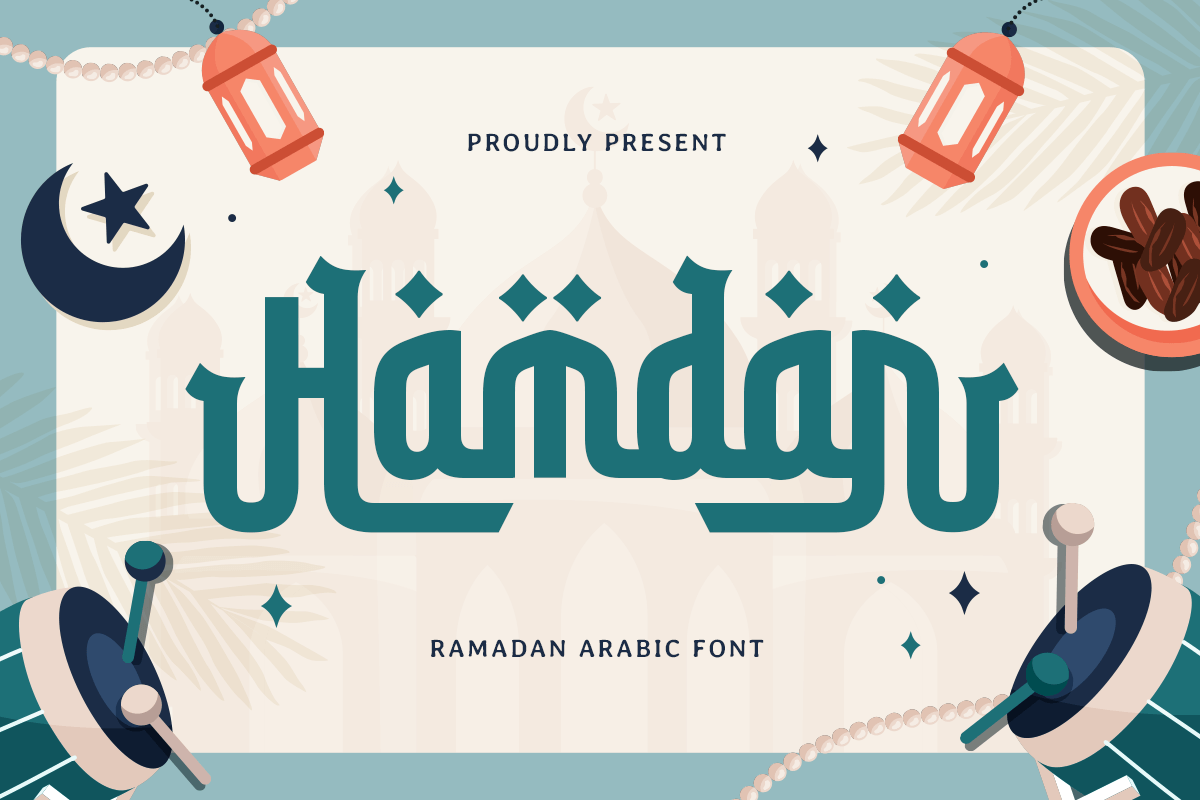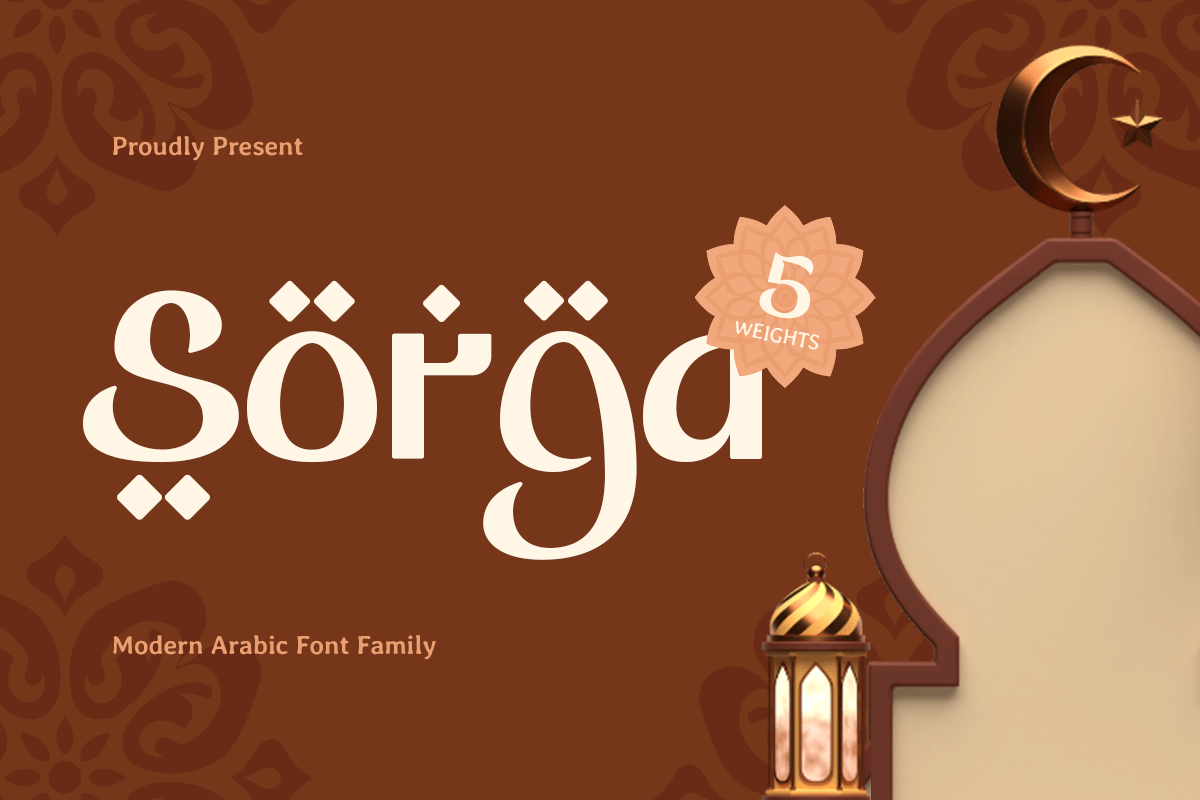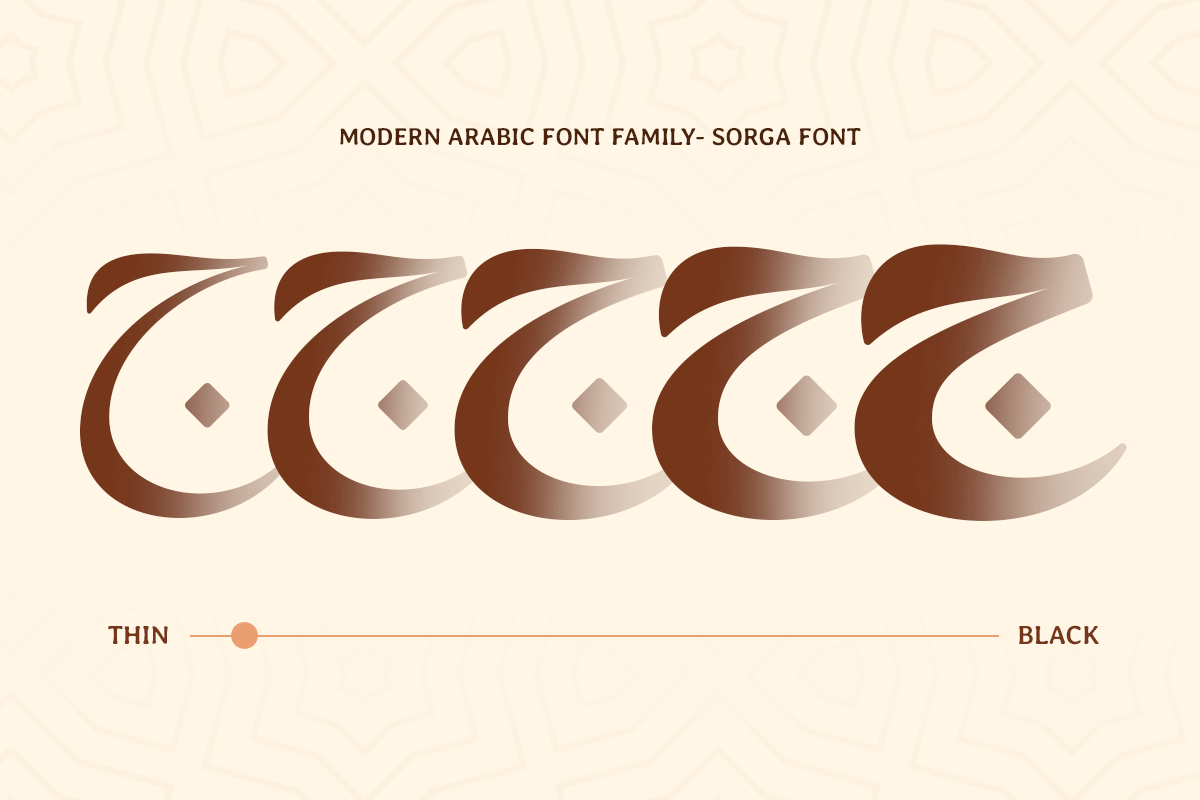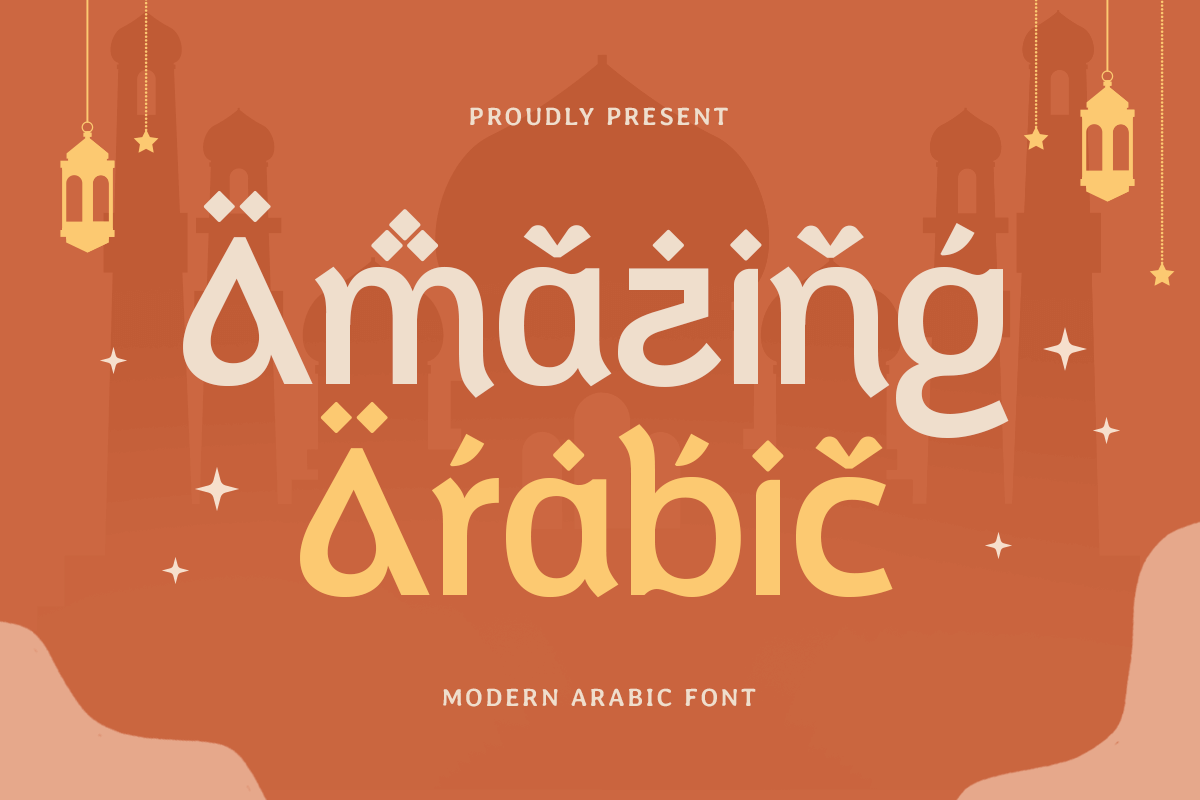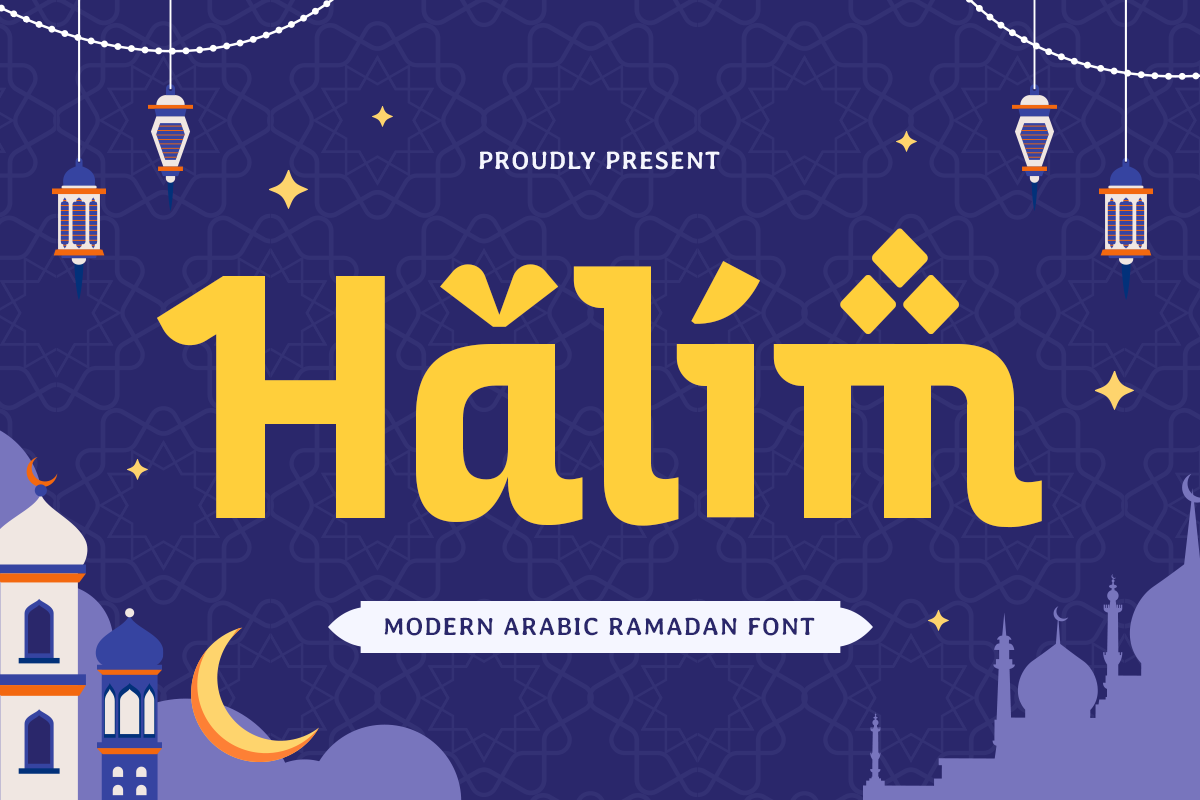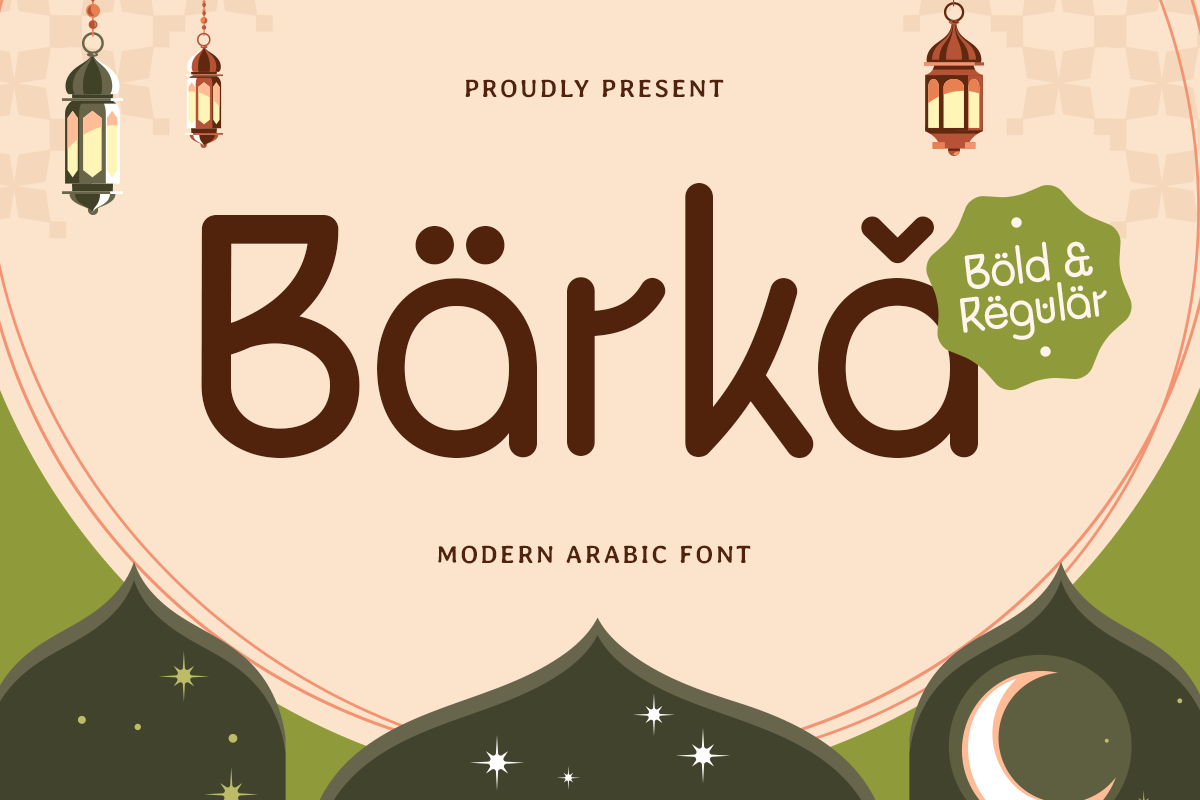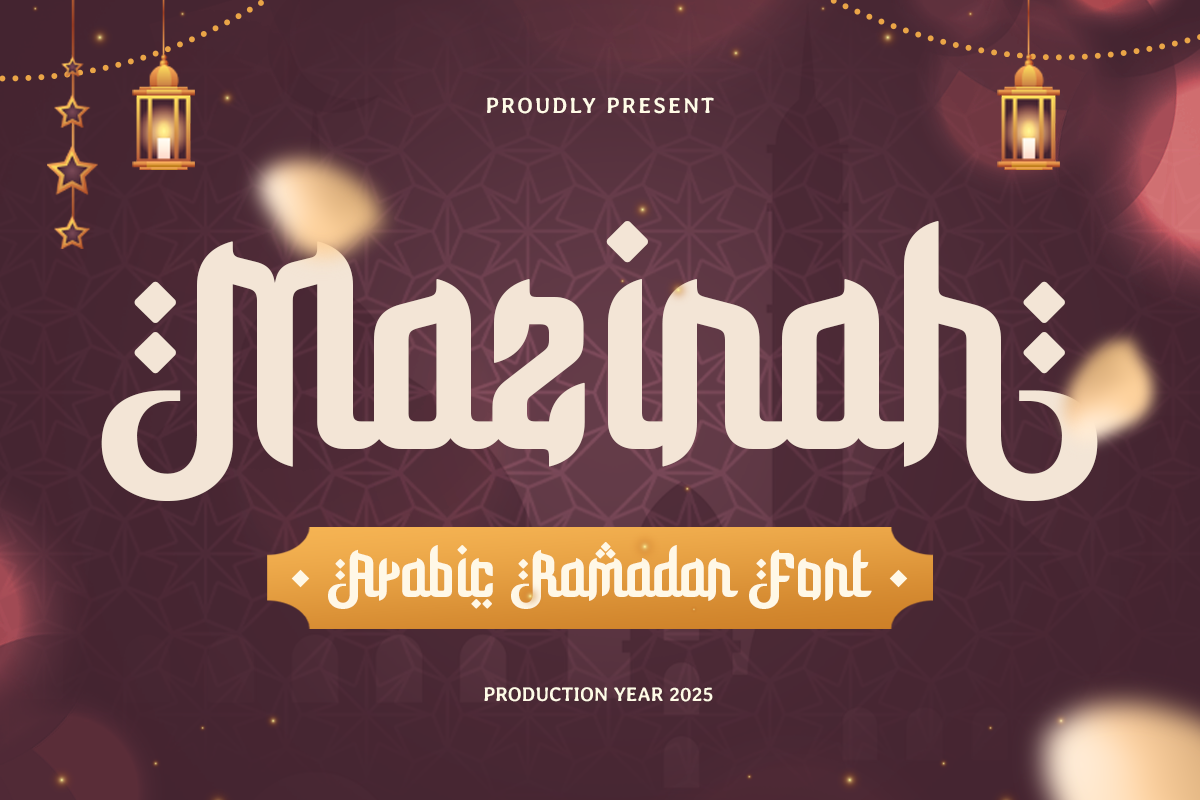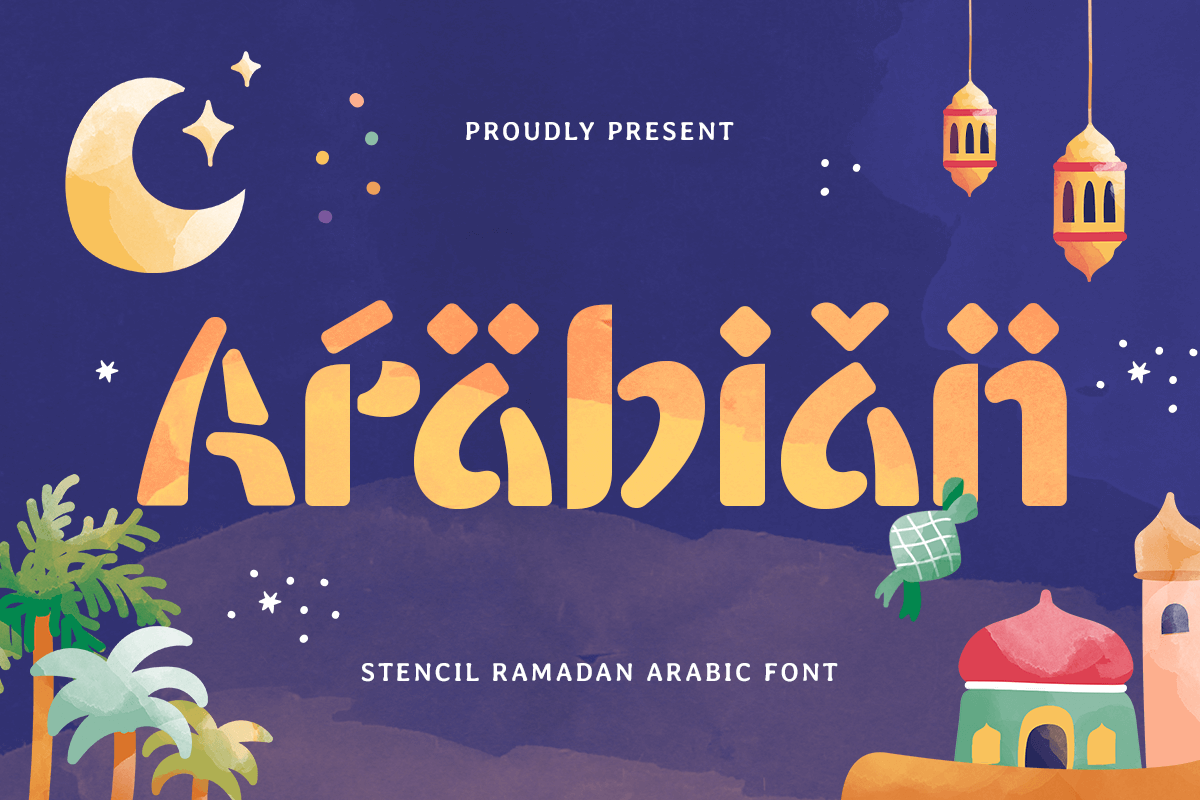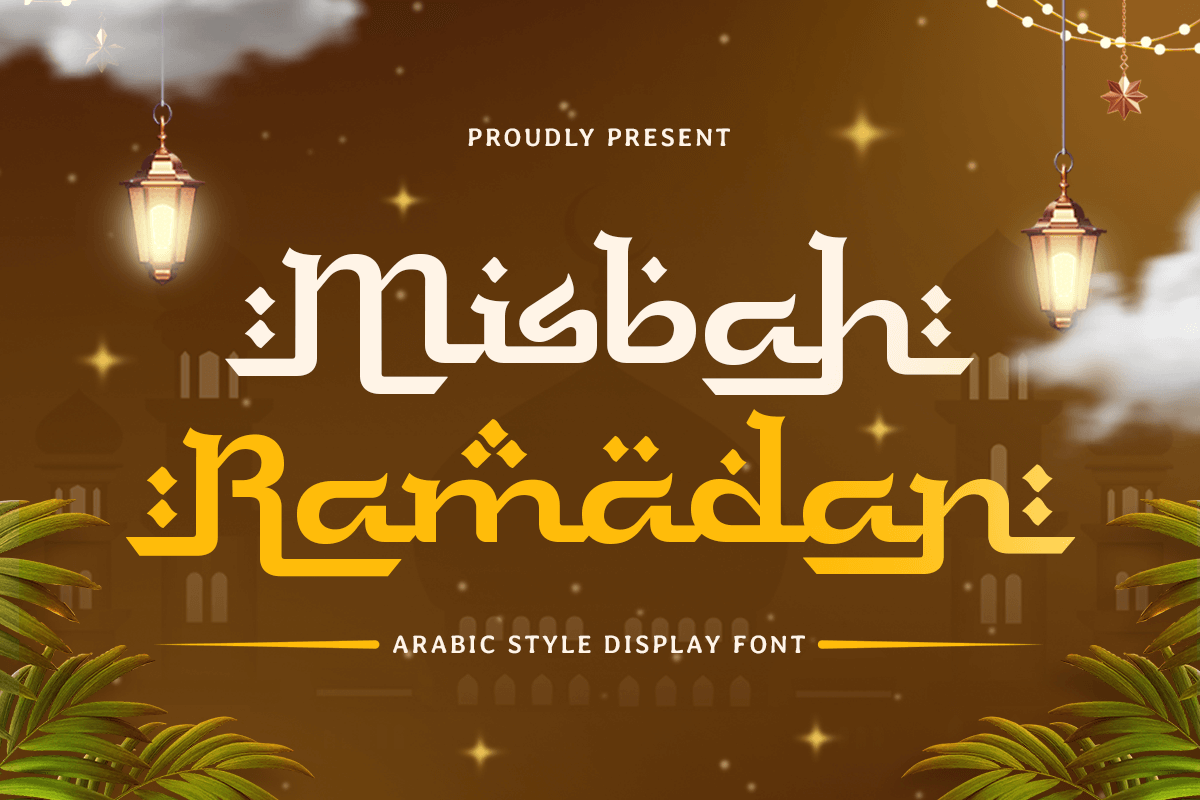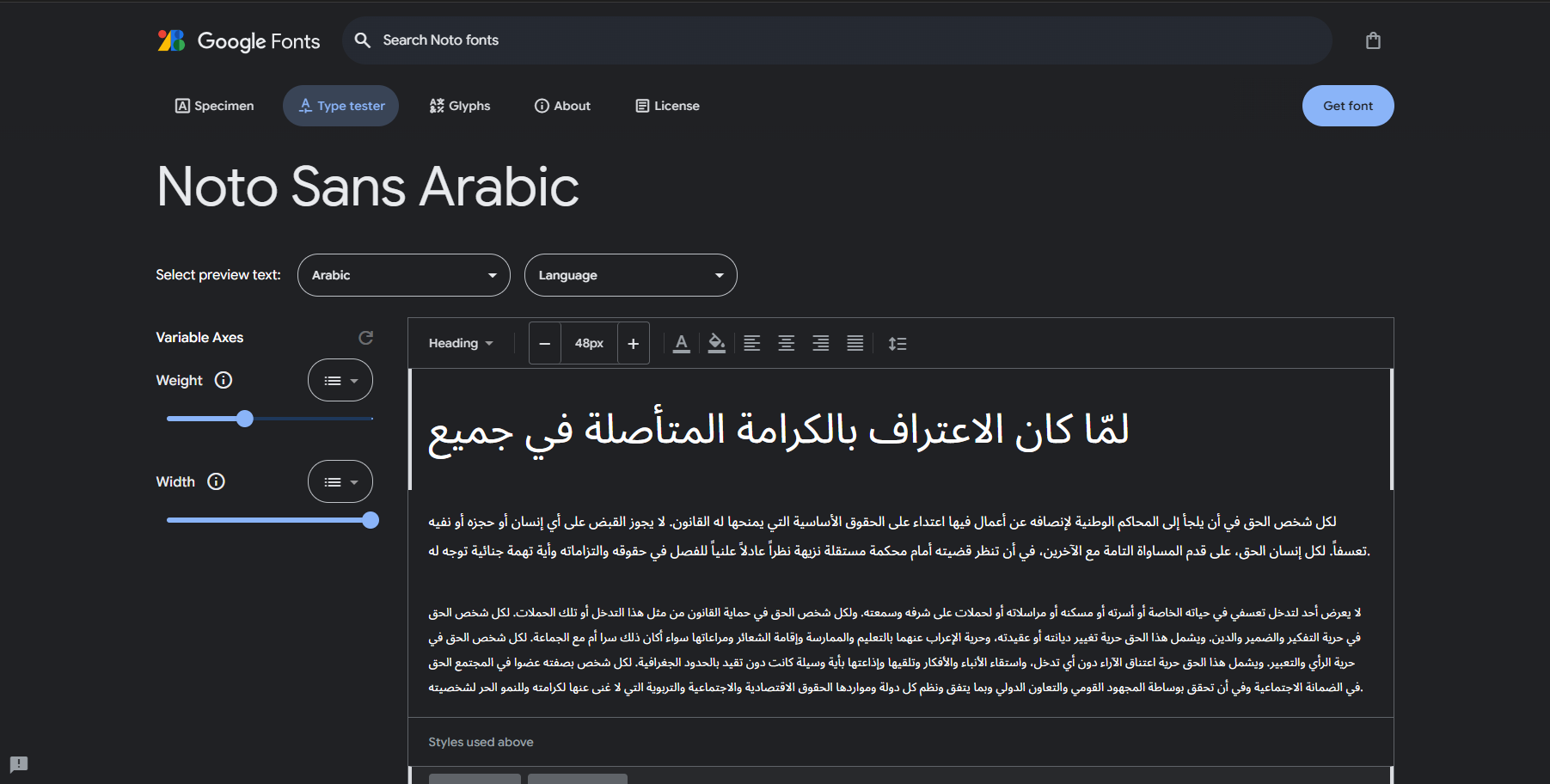
24+ Must-Have Arabic Fonts for Perfect Ramadan Designs in 2025
Discover 24+ must-have Arabic fonts to create perfect Ramadan designs in 2025. Elevate your projects with stunning typography that blends tradition and modern trends. Ideal for graphic designers and small business owners.
24 Best Arabic Fonts That’ll Make Your Ramadan Designs Unforgettable in 2025
Hey, designers! Ramadan is almost here, and you know what that means—it’s time to whip up some jaw-dropping fonts that capture the beauty and spirit of this holy month. But let’s be real: finding the perfect Arabic font can feel like trying to find a needle in a haystack. Been there, done that, and let me tell you, it’s not fun. Whether you’re designing for a client, your own business, or just for fun, the right font can take your project from “meh” to “wow.”Lucky for you, I’ve done the heavy lifting and rounded up 24 of the best Arabic fonts to make your Ramadan designs unforgettable. Whether you’re after a traditional Arabic font, a modern vibe, or something festive, this list has you covered. Let’s get into it.
Why Arabic Fonts Are a Big Deal for Ramadan Designs
Sorga Modern Arabic Font Family Fonts from Thin to Black
Let’s cut to the chase: Arabic script isn’t just writing—it’s art. It’s elegant, intricate, and deeply rooted in Islamic culture. But here’s the thing: not all Arabic fonts are created equal. I once picked a font that looked amazing on my screen but turned into a pixelated disaster when printed. Lesson learned: a good Arabic font does more than look pretty. It has to:
• Be readable (because squinting at your design isn’t a vibe)
• Work seamlessly across digital and print platforms
• Respect the cultural and religious essence of Ramadan
• Add that extra “wow” factor without being over the top
If you’ve ever struggled to find a font for Ramadan that checks all these boxes, you’re not alone. But don’t worry—I’ve got you covered.
Classic Arabic Fonts That Never Go Out of Style
Sometimes, you just can’t beat the classics. These traditional Arabic fonts are timeless, versatile, and perfect for projects that need an authentic touch.
1. Noto Sans Arabic Traditional Font
Noto Sans Arabic Traditional Font
Think of this as the little black dress of Arabic fonts—always appropriate, always classy. It’s perfect for Quranic verses or any design that needs a spiritual vibe. Whether you’re working on a Ramadan text font or a Quranic font, this one’s a winner.
2. Noto Naskh Arabic Traditional Font
Noto Naskh Arabic Traditional Font
This font is like the dependable friend who’s always there when you need them. It’s clean, professional, and ideal for long text like brochures or newsletters. If you’re after a font en arabe that’s easy to read, this is it.
3. Diwani Arabic Cursive Font
Feeling fancy? Diwani’s ornate, flowing style is perfect for wedding invites or luxury branding. Just don’t go overboard, or it might look like you’re trying too hard. It’s also a great choice for Arabic handwriting font projects.
4. Thuluth Arabic Cursive Font
If fonts had a red carpet, Thuluth would be strutting down it. It’s bold, regal, and perfect for headlines or religious quotes. This Arabic calligraphy font is ideal for Eid fonts or Islamic greeting fonts.
Modern Arabic Fonts for Digital Designs
If you’re designing for social media, websites, or apps, these Arabic style fonts are your new best friends. They’re sleek, contemporary, and made for screens.
5. Barca Ramadan Modern Arabic Font
Barca Ramadan Modern Arabic Ramadan Font
This one’s a crowd favorite. It’s clean, modern, and—wait for it—free for commercial use. I’ve used it for Instagram posts, business presentations, and even a restaurant menu. It’s one of the best free Arabic fonts for digital projects you can check at sensatype free font page.
6. Sorga Modern Arabic Font Family
Sorga Modern Arabic Font Family
Yes, Sorga has an Arabic family, and it’s just as stylish. Perfect for corporate clients who want something modern but not too flashy. This Arabic English font is ideal for bilingual projects.
7. Barka Modern Arabic Font
Barka Modern Arabic Font
This font is like that reliable coworker who always gets the job done. It’s balanced, easy to read, and great for UI/UX projects. It’s also a solid pick for fonts with Arab vibe in tech-focused designs.
8. Holizan Ramadan Modern Arabic Font
Holizan Ramadan Arabic Font
Designed specifically for digital use, this font is sharp, legible, and perfect for mobile apps or websites. If you’re looking for a font en arabe that’s optimized for screens, this isi.
Wrapping It Up
Look, I know picking the right Arabic font can feel overwhelming. But it doesn’t have to be. With this list, you’ve got everything you need to create designs that are not just good, but unforgettable. Whether you’re working on a Ramadan campaign, a personal project, or anything in between, these fonts will help you nail it.
So, go ahead—experiment, mix things up, and have fun with it. After all, the best designs are the ones that tell a story, and the right font is the first chapter.